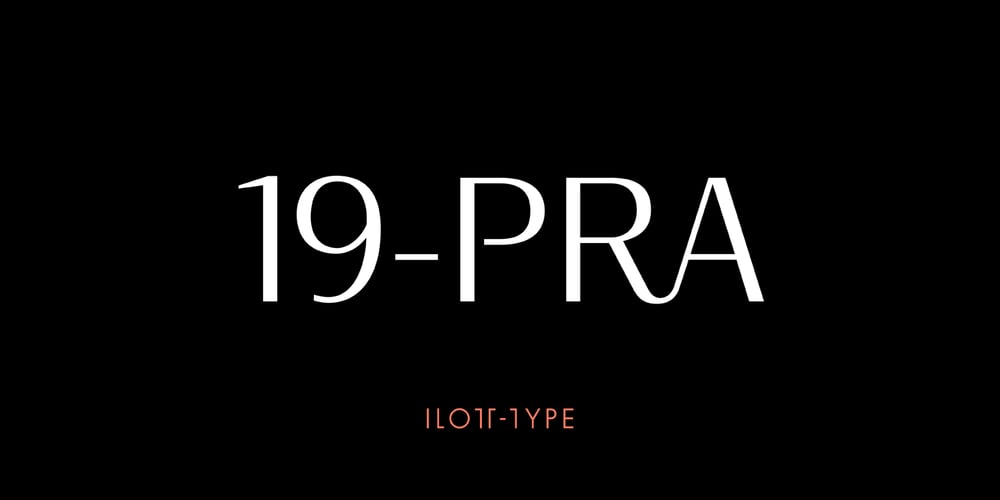
19-PRA Font Family was designed by Andrew Bellamy and published by ILOTT-TYPE. 19-PRA contains 10 styles and family package options. Inspired by the elegance of Herman Zapf’s designs crossed with the readability of early 20th century Gothic fonts by Morris Fuller Benton, 19-PRA is a sans-serif with a visible stroke contrast and a humanist tone of voice. The large x-height seen in fonts like News Gothic and Palatino increases legibility and condensed proportions give excellent readability making it perfect for newspaper and magazine publishing. A typeface that can serve for both body text and titling the uppercase excels for headlines and renders beautiful brand names when tracked out. It sets well with both a serif or sans serif and has various open type features including: 12 standard ligatures, 3 discretionary ligatures, tabular figures, old stye figures as well as European accents.